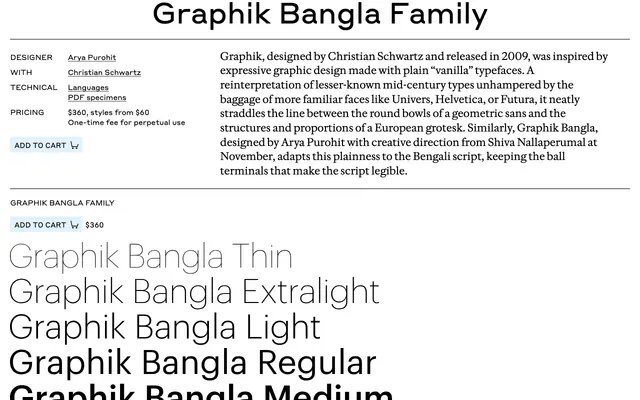
Graphik Bangla
Commercial Type · Arya Purohit · 2022
sans-serifneo-grotesque (Bengali)
Graphik Bangla specimen from Commercial Type
Arya Purohit's Bengali companion to Graphik, retaining the script's ball terminals for legibility.
A Bengali companion to Graphik by Arya Purohit, with creative direction from Shiva Nallaperumal at November. The adaptation carries Graphik's plain, vanilla character into the Bengali script while keeping the ball terminals that make Bangla read clearly. Nine weights from Thin to Super match the Latin master across editorial, branding and publishing applications that need to work in both scripts.
Commercial Type frame Graphik Bangla as an Arya Purohit adaptation of the Graphik concept to the Bengali script, with creative direction by Shiva Nallaperumal at November, keeping the ball terminals that make Bengali legible.